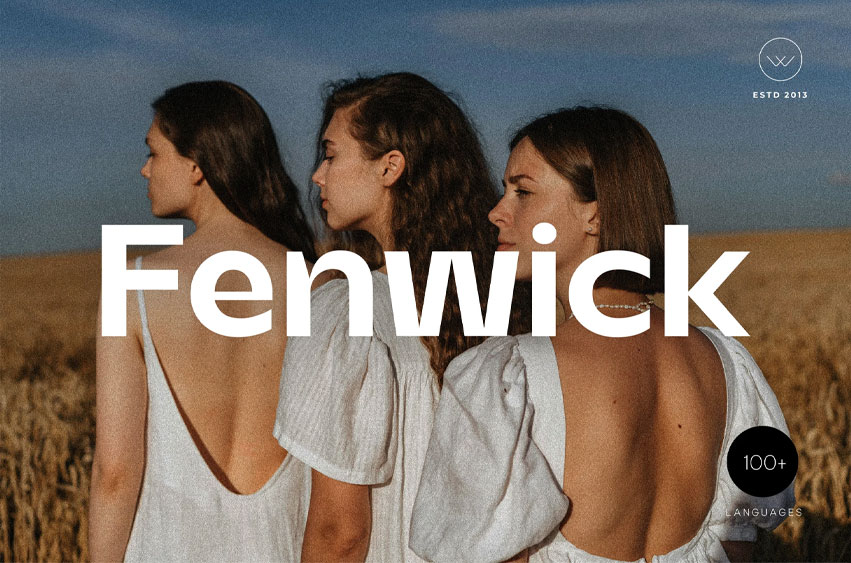
Fenwick Font
Fenwick Font is a sleek and versatile sans-serif typeface crafted for designers who seek simplicity with a touch of sophistication. Designed with precision, this font delivers a clean, modern aesthetic that enhances any creative project, from branding to web design.
With its balanced proportions and refined letterforms, After ensures outstanding readability while maintaining a stylish, contemporary look. Whether you’re designing logos, headlines, presentations, or editorial layouts, this font brings a polished, professional feel to your work.
• Elegant & Minimalist Design – Perfect for both print and digital projects
• Uppercase & Lowercase Letters – Well-crafted, modern letterforms
• Numbers & Punctuation – Complete character set for versatile usage
Designed and meticulously crafted by Webhance Studio, After is your go-to choice for a timeless, professional typeface that seamlessly adapts to any creative vision.